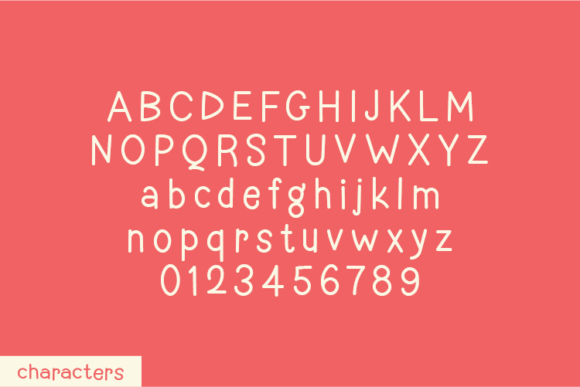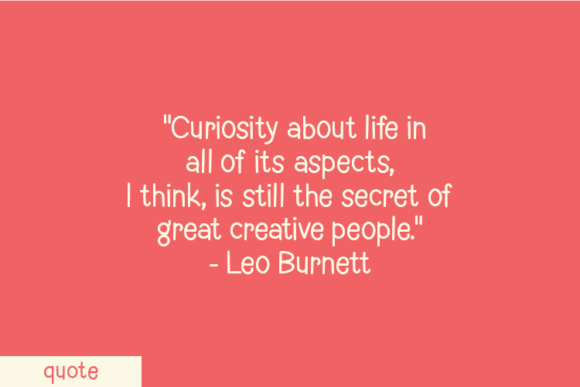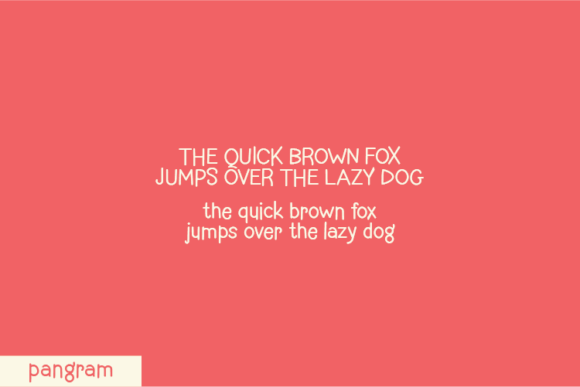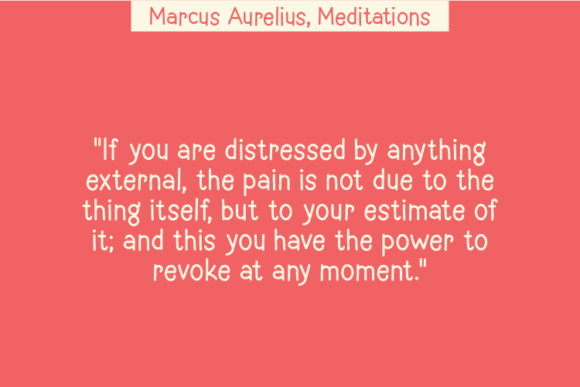
The Blossoming Font: A Unique Gem for Creative Projects
I’ll never forget the time I was working on a client project, a beautiful quote poster, and I just couldn’t find the right font to bring the words to life. The client wanted something special, something that would make the quote stand out and resonate with their audience. That’s when I stumbled upon the Blossoming font. It was like a breath of fresh air – a natural, handwritten font that added a touch of elegance and whimsy to the design. In this article, I’ll share my experience with Blossoming, its unique features, and how to make the most of it in your creative projects.
A Personal Review: What I Love About Blossoming
So, what makes Blossoming so special? Here are a few things that I absolutely love about this font:
• ✨ Unique character indentation: Blossoming’s most distinctive feature is that it doesn’t change a single node in each character’s indentation. This creates a beautiful, organic feel that’s hard to find in other fonts.
• ✅ Perfect for quotes and notes: The font’s natural, handwritten style makes it perfect for quotes, notes, and other text-based designs.
• 🎨 Versatile and creative: Blossoming can be used for a wide range of creative projects, from tee designs to posters, and even digital art.
While Blossoming is an amazing font, there are a few quirks to keep in mind:
• 🤔 Limited use in formal designs: Due to its handwritten nature, Blossoming might not be the best fit for formal designs or projects that require a more traditional look.
• ⚠️ Glyphs and OpenType features: While Blossoming supports OpenType features and glyphs, some users might find the character set a bit limited.
Blossoming was created with the intention of capturing the beauty of handwritten typography. The designer wanted to create a font that would add a touch of elegance and whimsy to creative projects. Inspired by the natural world, Blossoming features a unique character indentation that sets it apart from other fonts.
Does Blossoming support OpenType features? Yes, Blossoming supports OpenType features, including ligatures and stylistic alternates.